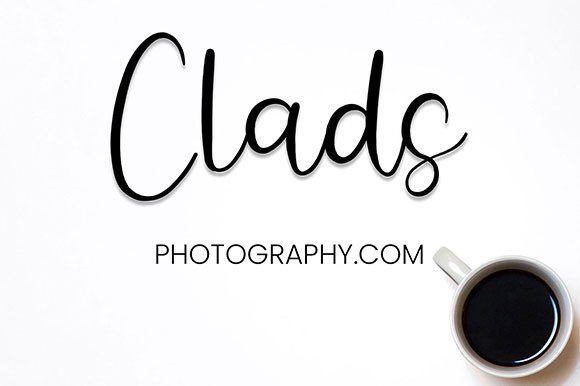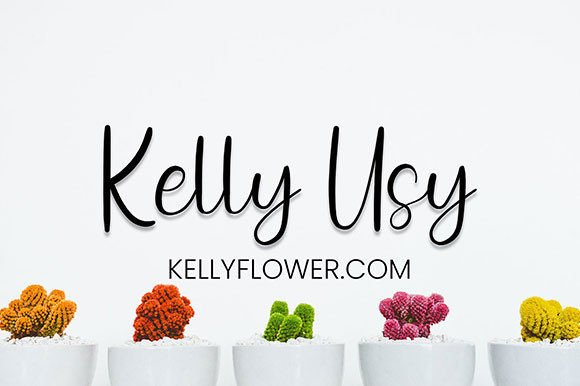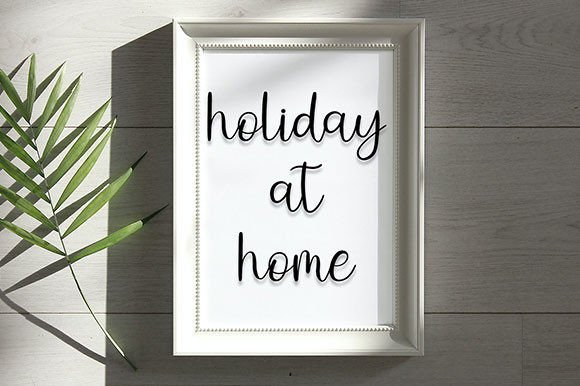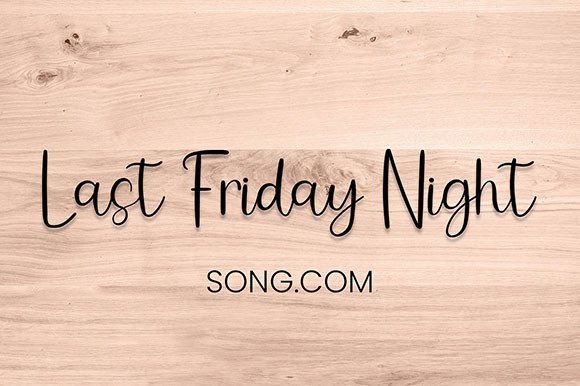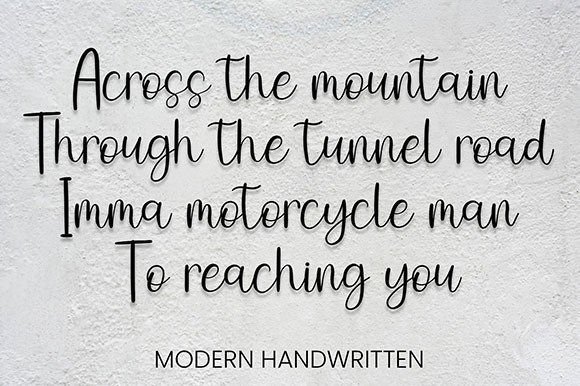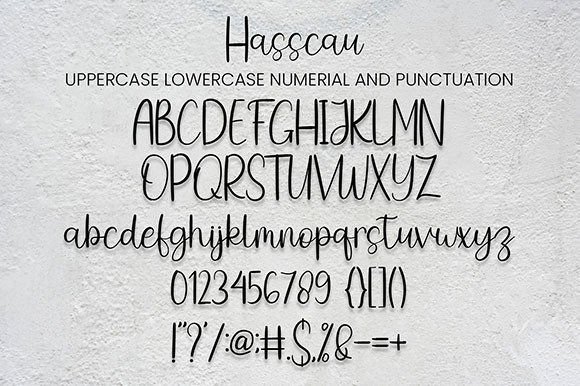
Introduction to Hasscau Font
Remember that moment when you stumbled upon the perfect font for your creative project? It’s like finding the missing piece of a puzzle, and everything just clicks into place. For designers, having access to high-quality fonts is crucial for bringing their ideas to life. One such gem is the Hasscau Font, a beautiful handwritten font that’s perfect for a variety of projects.
The Hasscau Font is more than just a design resource – it’s a versatile tool that can elevate your quotes, logos, blog headers, posters, and more. With its elegant and sophisticated look, it’s no wonder why designers love using it for their creative projects. Plus, with a transparent background, you can easily place it over any image or design element, giving you complete creative control.
Key Features of Hasscau Font
- Includes a range of characters, including uppercase and lowercase letters, numbers, and punctuation marks
- Designed to be highly legible at various resolutions, including 72 dpi and 300 dpi
- Unique characteristics include a modern and minimalist aesthetic, making it suitable for a wide range of design applications
Honest Review: Hasscau Font
As a designer, I’m always on the lookout for high-quality fonts that can elevate my creative projects. I recently had the chance to try out the Hasscau Font, and I’m excited to share my thoughts.
What works well: ✨ The Hasscau Font is incredibly versatile and can be used for a wide range of design projects, from logotypes to brochures. Its sleek and modern design makes it a great addition to any design resource.
Here are some of my favorite features of the Hasscau Font:
- High-quality design that looks great on both screen and print
Any limitations: ⚠️ While the Hasscau Font is generally well-designed, I did find that it can be a bit difficult to read at very small font sizes. Additionally, some users may find the font too modern or trendy for their taste.
Overall, I was impressed with the Hasscau Font and would recommend it to designers looking for a high-quality, modern font. With its versatility and transparent background, it’s a great addition to any design resource. Just be aware of the potential limitations and use it thoughtfully in your creative projects.
Hasscau Font is a high-quality design resource that can add a touch of elegance to your creative projects. With its transparent background, it can be easily layered with other design elements to create a cohesive look.
To get the most out of Hasscau Font, use it in conjunction with other design elements that complement its style. Experiment with different font sizes, colors, and arrangements to find the perfect combination for your project.
Common Use Cases for Hasscau Font
Hasscau Font is commonly used in graphic design, branding, and digital marketing projects. Its versatility makes it a great choice for a wide range of applications, from business cards to social media graphics.
Compared to Hasscau Font, Great Vibes Font has a more refined and luxurious feel, making it suitable for high-end design projects. While Hasscau Font is great for casual, handwritten-style text, Great Vibes Font is better suited for formal, elegant applications.